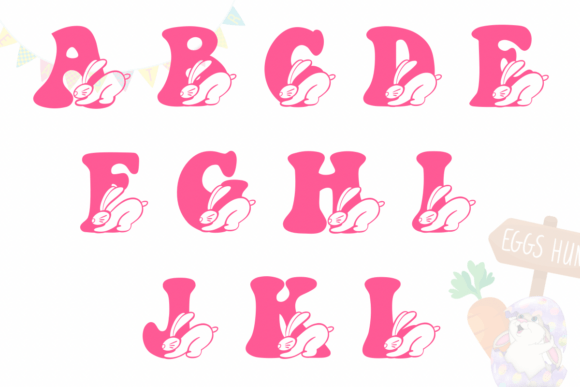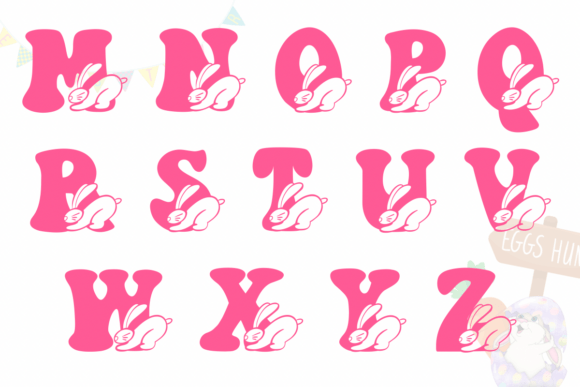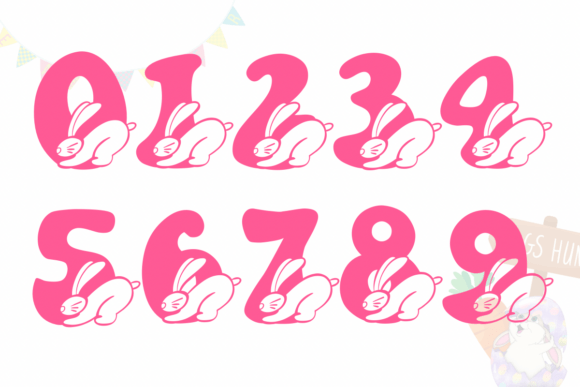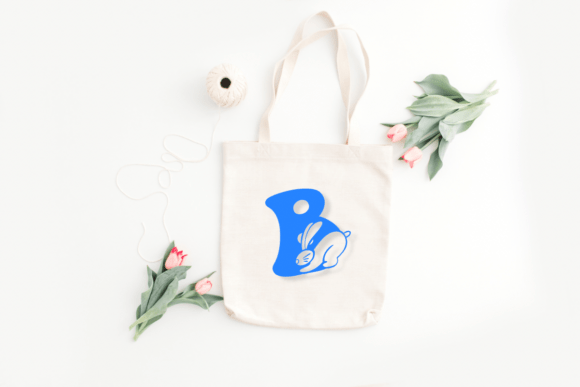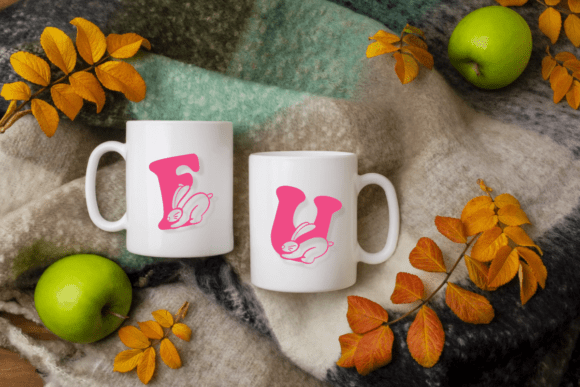
Hop into Spring with the Groovy Easter Bunny Font
Are you looking for a fun and playful font to add some Easter cheer to your designs? Look no further than the Groovy Easter Bunny Font! This funky, decorative typeface is perfect for Easter-themed projects, party invitations, kids’ crafts, and holiday merchandise. With its adorable bunny twist on each letter, this font is sure to bring a smile to anyone’s face.
What is the Groovy Easter Bunny Font?
The Groovy Easter Bunny Font is a unique and creative typeface that features an adorable bunny design integrated into each letter. From the “A” to the “Z”, every letter is carefully crafted to showcase a cute and playful bunny, making it the perfect addition to any Easter-themed project. Whether you’re designing party invitations, crafting Easter baskets, or creating holiday merchandise, this font is sure to add a touch of whimsy and fun to your designs.
Features of the Groovy Easter Bunny Font
- Adorable Bunny Design: Each letter features a unique and adorable bunny design, making it perfect for Easter-themed projects.
- Playful and Bold: The font is playful and bold, making it perfect for kids’ crafts, party invitations, and holiday merchandise.
- High-Quality Design: The font is designed with high-quality graphics, ensuring that it looks great in any design.
Uses for the Groovy Easter Bunny Font
The Groovy Easter Bunny Font is perfect for a variety of Easter-themed projects, including:
- Easter Party Invitations: Create fun and playful invitations for Easter parties and events.
- Kids’ Crafts: Add a touch of whimsy and fun to kids’ Easter crafts, such as Easter baskets and egg decorations.
- Easter Merchandise: Create fun and playful Easter merchandise, such as t-shirts, mugs, and Easter baskets.
- Holiday Cards: Create adorable Easter cards for friends and family.
Tips for Using the Groovy Easter Bunny Font
Here are a few tips for using the Groovy Easter Bunny Font:
- Use it Sparingly: While the font is playful and fun, it can be overwhelming if used too much. Use it sparingly to add a touch of whimsy to your designs.
- Pair it with Other Fonts: Pair the Groovy Easter Bunny Font with other fonts to create a unique and interesting design.
- Experiment with Colors: Experiment with different colors to add an extra touch of fun and whimsy to your designs.
The Groovy Easter Bunny Font is a fun and playful typeface that’s perfect for Easter-themed projects, party invitations, kids’ crafts, and holiday merchandise. With its adorable bunny design and bold, playful style, this font is sure to add a touch of whimsy and fun to your designs. So why not hop into spring with the Groovy Easter Bunny Font and add some groovy charm and festive flair to your designs?